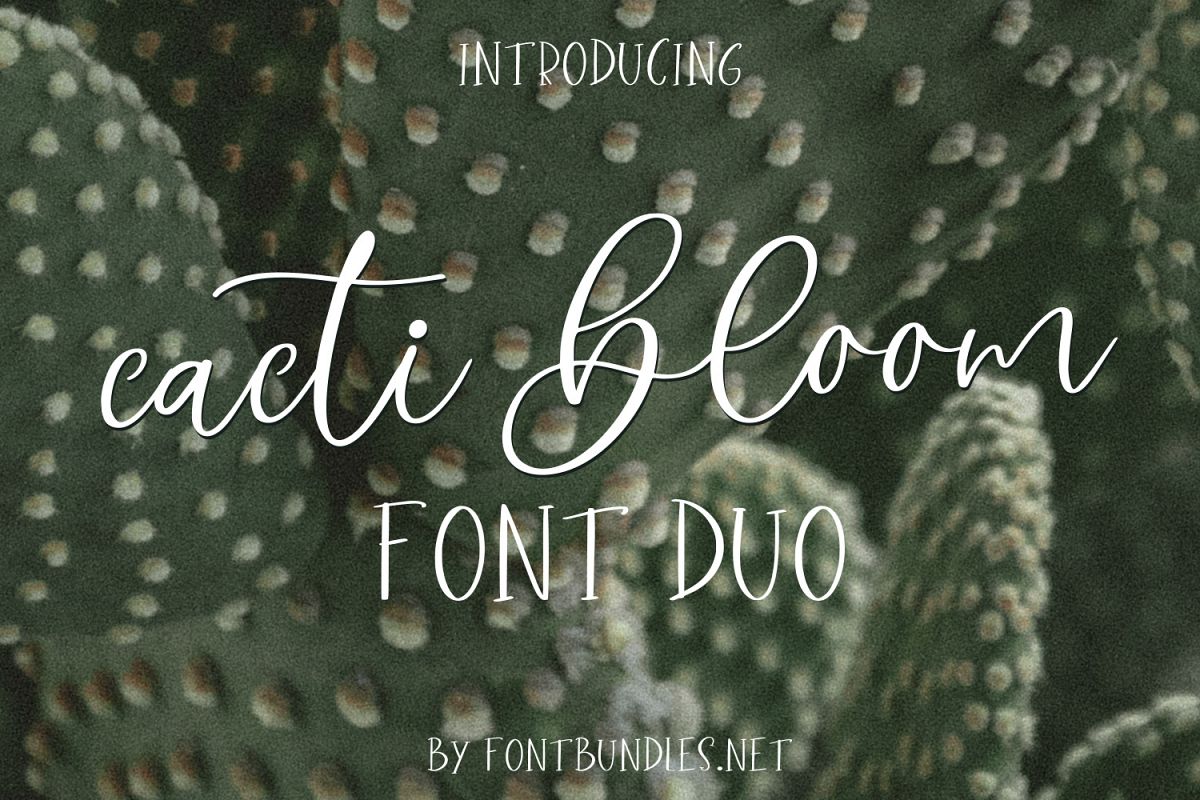
Cacti Bloom Font Duo - it'a a cute font duo Cacti Bloom.otf - standart uppercase, lowercase, numbers, punctuation Cacti Bloom.ttf - standart uppercase, lowercase, numbers, punctuation Cacti Bloom -Script.otf - standart and alternate uppercase, lowercase, numbers, punctuation and ligature Cacti Bloom Stn-Script.ttf - standart uppercase, lowercase, numbers, punctuation and ligatures Cacti Bloom Alt-Script.ttf - alternate uppercase and lowercase